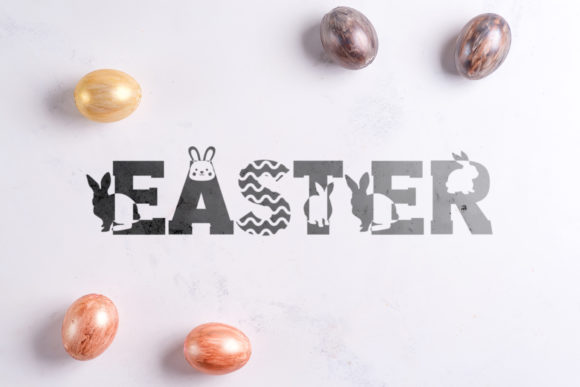
Introducing the Easter Font - the perfect addition to your font collection! Created by Vladimir Carrer, this quirky decorative font is designed to add a touch of joy and playfulness to your designs.
With Easter Font, you can take your creative projects to a whole new level. Whether you're creating beautiful stationery art, eye-catching social media posts, or unique product packaging, Easter Font will help you stand out from the crowd.
This font is not your ordinary font - it's filled with personality and character that will make your designs pop! The playful style of Easter Font will leave a lasting impression on your audience and make your designs more memorable.
Easter Font is also incredibly versatile. Its unique design can be used in a variety of projects such as invitations, greeting cards, posters, and even logos. You'll love the endless possibilities this font provides.
If you want to elevate your designs and make them more captivating, then Easter Font is the way to go. The font is perfect for anyone who wants to add a touch of whimsy and fun to their creations.